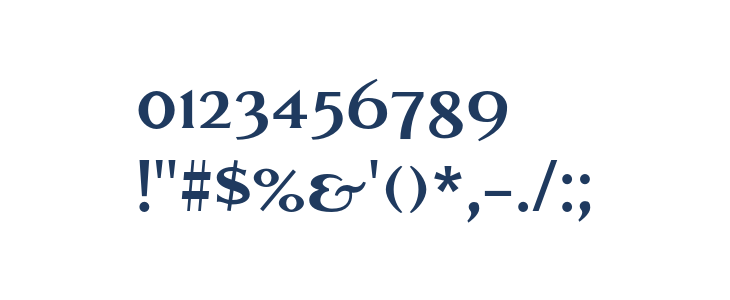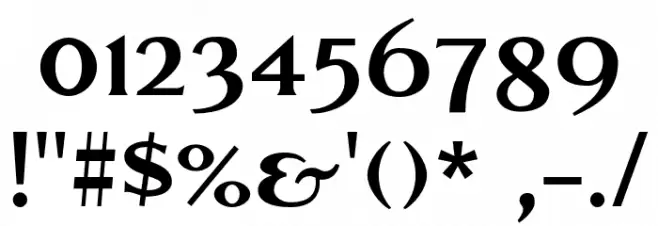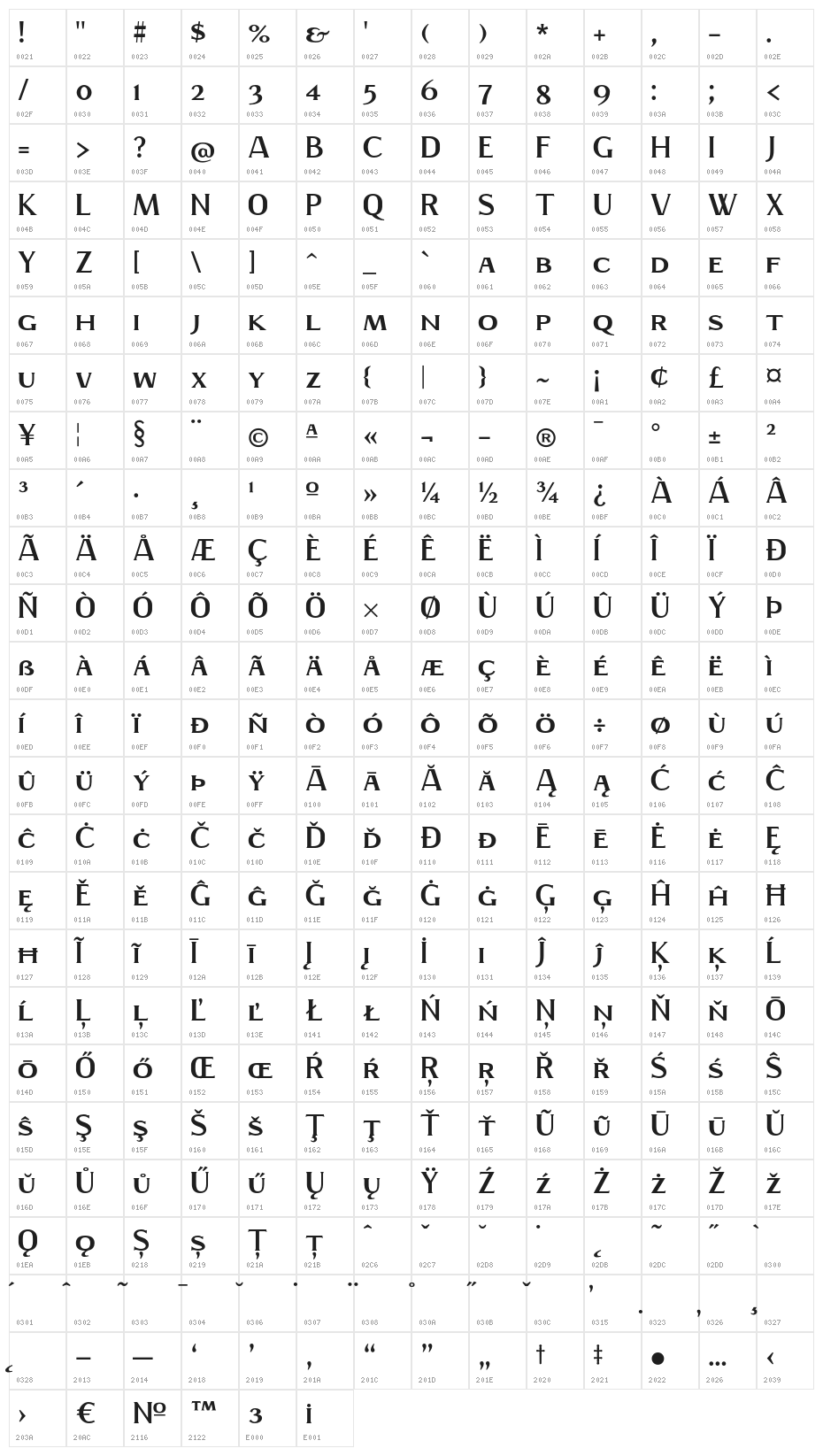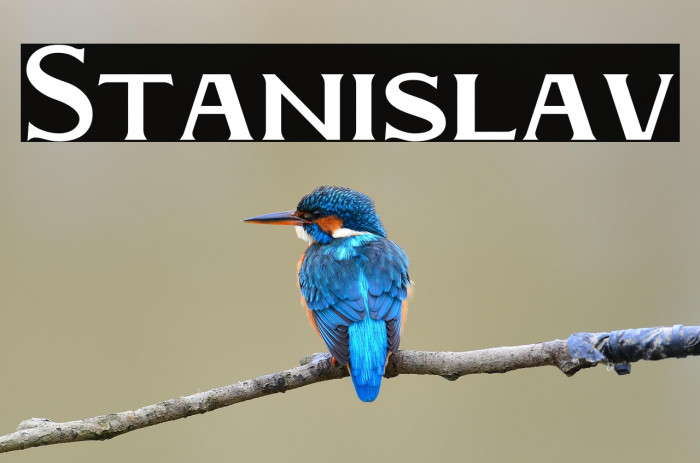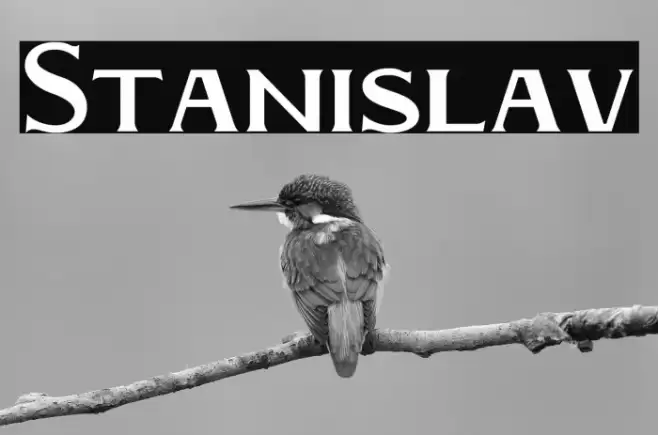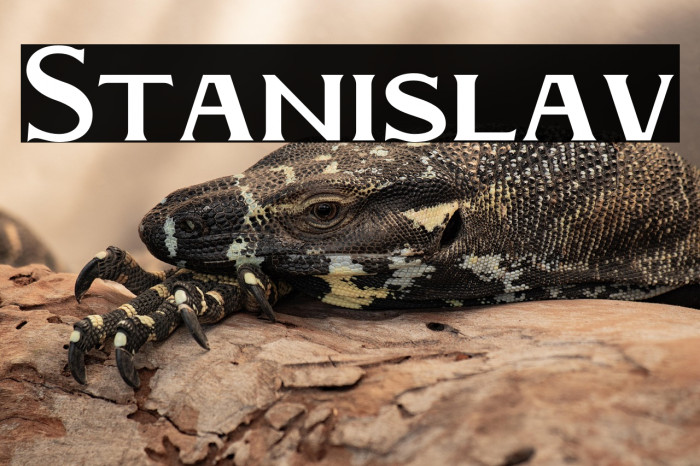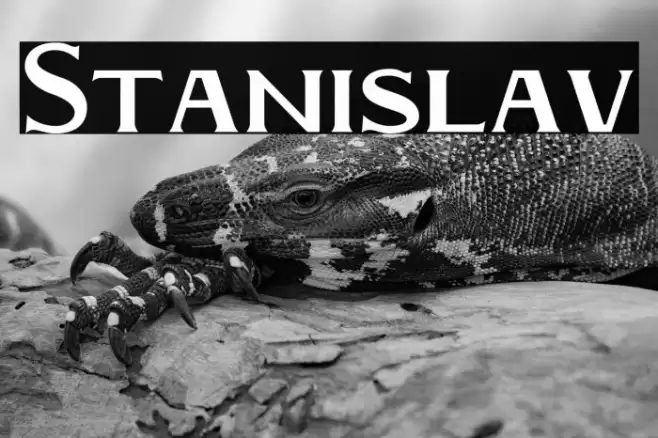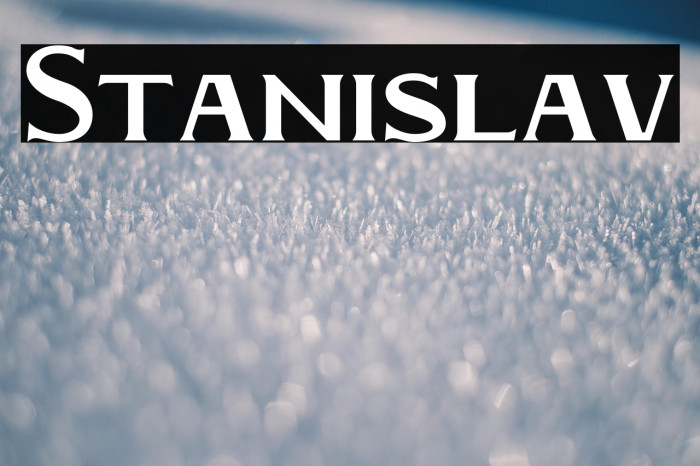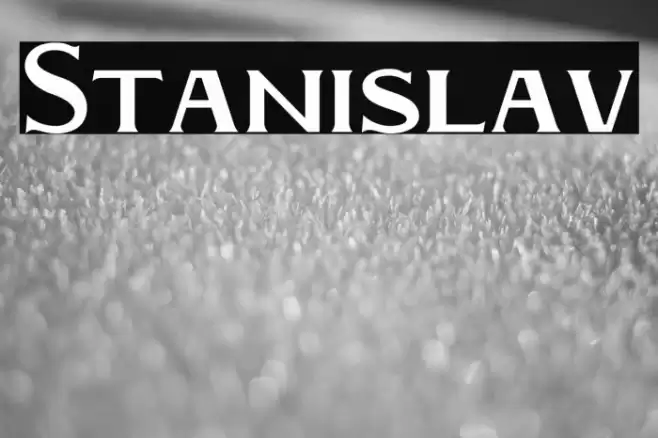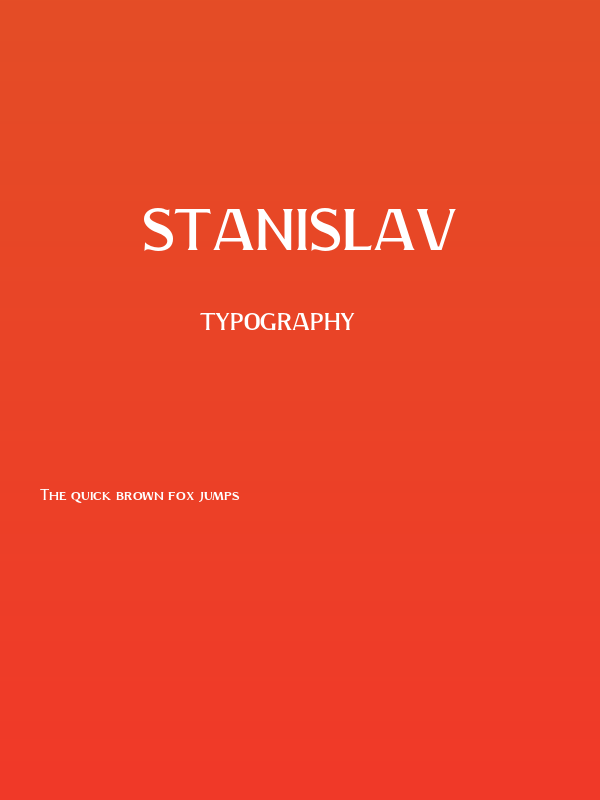
Stanislav Font
Stanislav Description
This font features a classic serif style with elegant curves and a strong presence. The uppercase letters are bold and commanding, with sharp serifs that add a touch of sophistication. The lowercase letters maintain a consistent style, offering a harmonious balance between the characters. The numerals are distinct and easy to read, with a slight flair that complements the overall design. Special characters are well-integrated, maintaining the font's cohesive aesthetic. This font exudes a timeless elegance, making it suitable for a variety of design applications.
| Use Case | Headlines, Logos, Editorial design |
| Proposed Projects | Ideal for book covers, formal invitations, branding, and editorial design. |